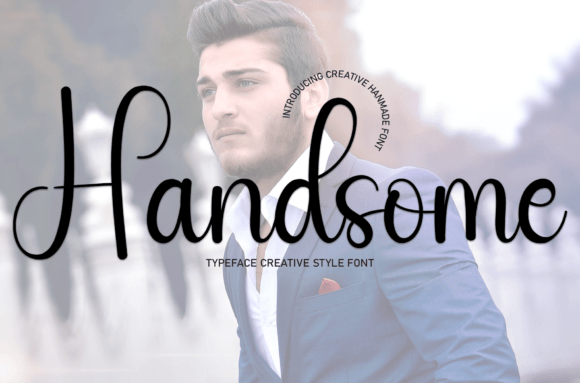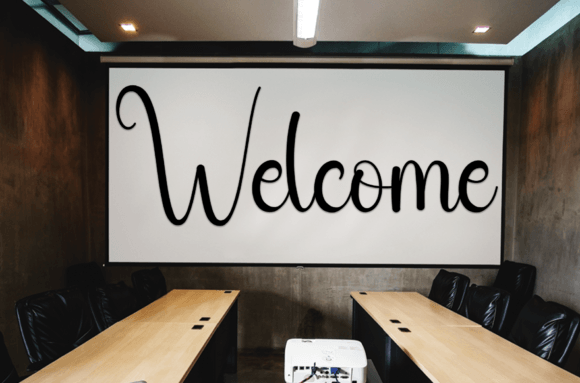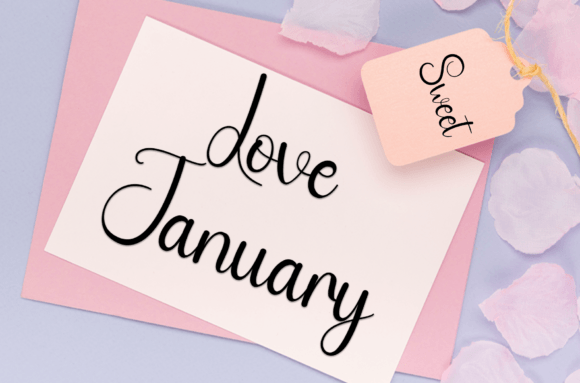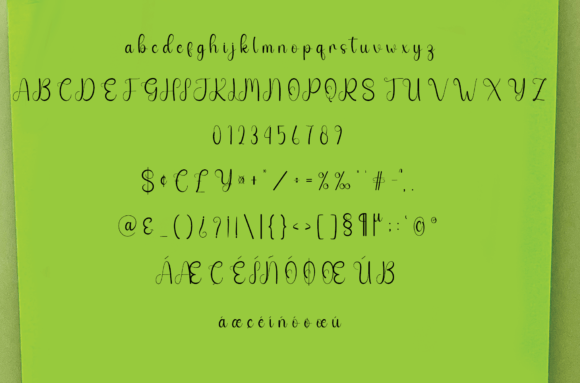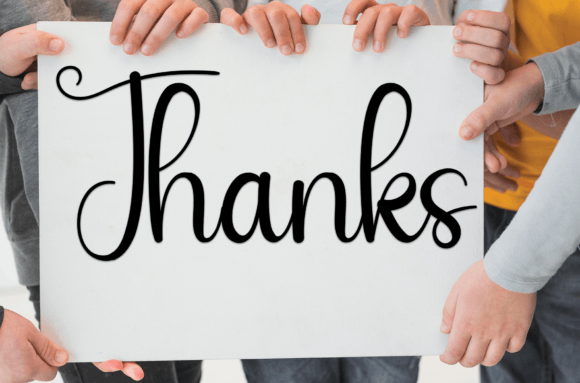
Handsome Font
What Is Handsome Font?
Handsome is a sweet and friendly handwritten font designed to add warmth and charm to any project. With its cute, playful style, this font makes your designs feel personal and inviting. Because it’s crafted with care, Handsome is an ideal choice for both professional and personal use.
You’ll love how easily it transforms your creative ideas into eye-catching results.
Handsome is a versatile font that suits many applications. For example, it looks wonderful on wedding invitations. Whether you’re creating formal event stationery or casual save-the-date cards, this font brings a heartfelt, joyful touch.
It also shines in greeting cards and thank-you notes. If you want your words to feel sincere and memorable, Handsome helps you share your message with style.
Additionally, this font is perfect for social media graphics. Whether you’re posting quotes, promotions, or announcements, its playful letters draw attention and make your content stand out.
You can even use Handsome for packaging, labels, and branding to give your products a cozy, approachable look. From DIY crafts and event signage to personalized gifts, this font adapts beautifully to any project.
Why Should You Choose Handsome Font?
There are plenty of reasons to add Handsome to your font library. First, it stays clear and legible at every size. Whether you’re designing big headlines or small captions, each letter remains crisp and balanced.
It also pairs well with clean serif or sans-serif fonts, which helps you create polished, harmonious layouts easily.
Designers appreciate how polished and professional it looks immediately, saving time while elevating their work.
Handsome Font brings personality, joy, and friendliness to every project. For example, if you want your designs to feel warm and welcoming, this font makes it simple.
Even minimalist layouts become more engaging with Handsome’s smooth curves and lively details. Whether you’re designing cards, branding, or social media posts, your work will look cheerful and inviting.
Using a high-quality handwritten font also shows your dedication to detail, which helps you build trust and make a great impression.
Handsome Font is more than a typeface—it’s a creative companion that adds a touch of sweetness to any project. From invitations and labels to social media graphics and logos, this font adapts seamlessly and makes your designs shine.